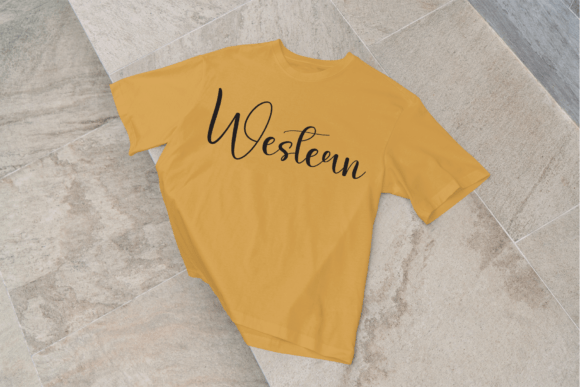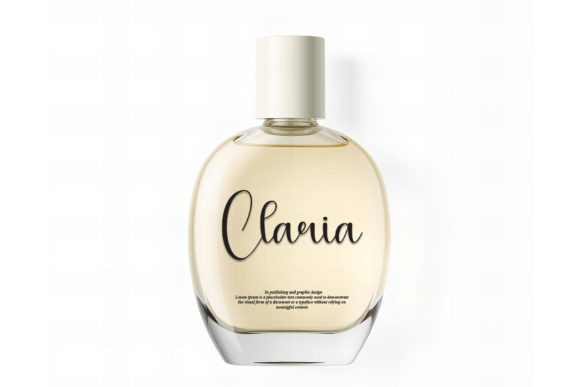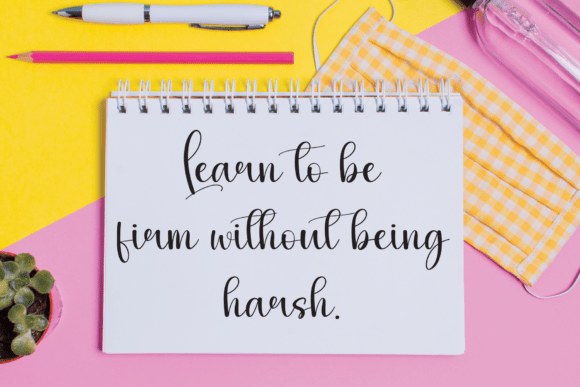
Introduction to Honeyday Font
Sweeten your designs with Honeyday, a romantic calligraphy typeface that captures a “breezy-and-blissful” soul.
This font features tall, monolinear letterforms uniquely characterized by rhythmic, hand-drawn loops and elegant, elongated stems that bridge the gap between casual handwritten notes and high-end wedding branding With its light structural weight and airy personality, Honeyday is the premier choice for independent travel blogging, seaside wedding invitations, artisanal summer products, and high-impact “sunny-and-sentimental” social media headers.